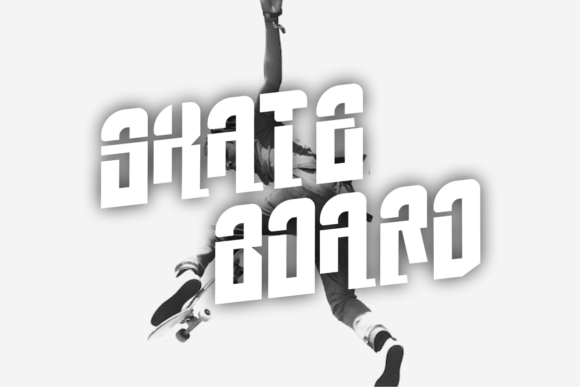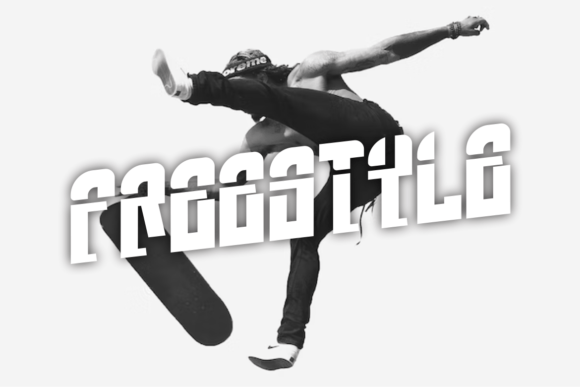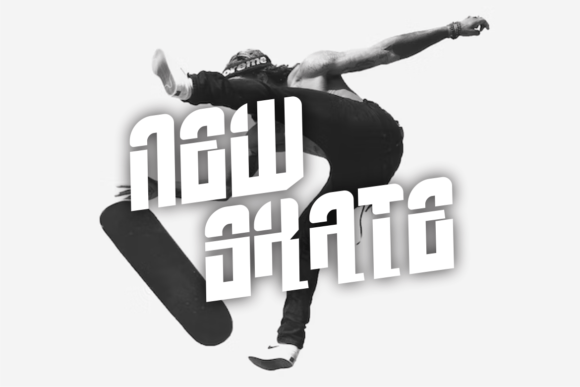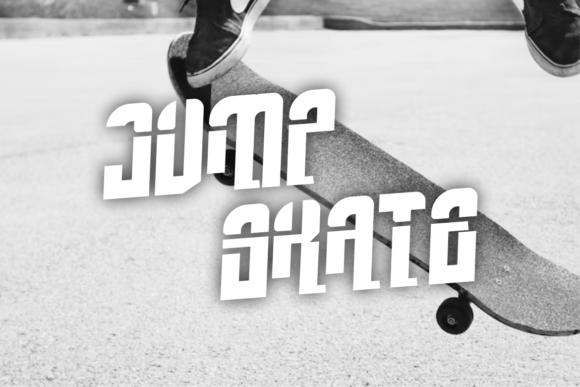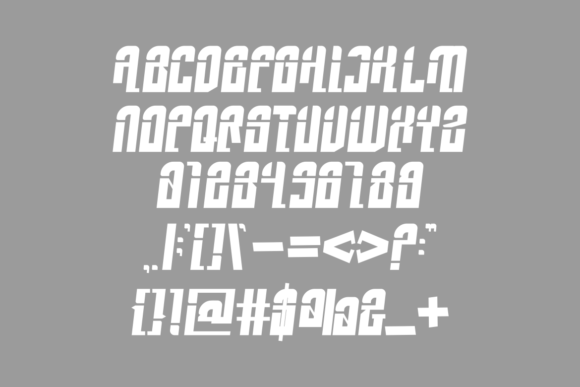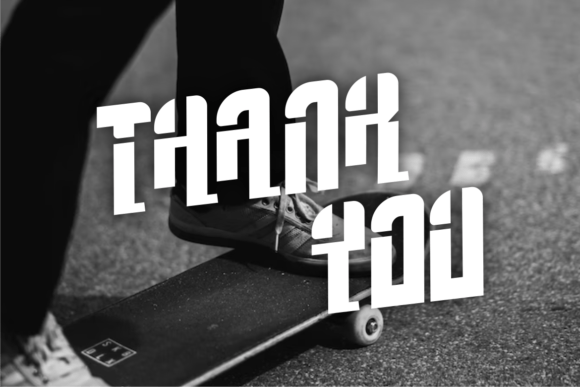
Introducing Arskate Font: The Futuristic Slab Serif for Modern Designs
In the realm of typography, fonts play a pivotal role in conveying the essence and aesthetic of a design. Among the myriad of fonts available, Arskate stands out as a futuristic slab serif font that embodies beauty, futurism, and modernity. This versatile font is perfectly suited for a wide array of projects, ranging from signatures and stationery to logos, wedding designs, typography quotes, magazine or book covers, website headers, clothing, branding, packaging designs, and more.
The Essence of Arskate Font
Arskate is not just a font; it’s an experience. Its slab serif design gives it a robust and dependable feel, while its futuristic undertones add a sleek, modern vibe. This combination makes Arskate a unique addition to any design project, offering both character and versatility. Whether you’re crafting a logo that needs to stand out, designing a wedding invitation that exudes elegance, or creating a website header that captures attention, Arskate provides the perfect blend of style and readability.
Applications of Arskate Font
The adaptability of Arskate font is one of its most compelling features. Here are some of the many ways designers and crafters can utilize Arskate:
- Signature and Stationery: Elevate personal or business correspondence with a touch of modern sophistication.
- Logos: Create memorable and impactful logos that convey innovation and forward-thinking.
- Weddings: Add a contemporary flair to wedding invitations, programs, and decor.
- Typography Quotes: Highlight inspiring quotes with a stylish and modern font.
- Magazine or Book Covers: Stand out on shelves with a cover that combines modernity and readability.
- Website Headers: Capture the essence of your website with headers that are both eye-catching and legible.
- Clothing and Branding: Incorporate Arskate into apparel designs or brand identities for a fresh, modern look.
- Packaging Designs: Make your product packaging not just protective but also a statement piece.
Why Choose Arskate Font?
In a world where design trends are constantly evolving, having a font that can keep pace is invaluable. Arskate offers:
- Uniqueness: Stand out from the crowd with a font that is both modern and distinctive.
- Versatility: Use Arskate across various mediums and projects, from digital to print.
- Legibility: Despite its stylized appearance, Arskate maintains high readability, making it suitable for body text and headlines alike.
- Ease of Use: Arskate is designed to be user-friendly, making it accessible for designers of all skill levels.
Tips for Using Arskate Font Effectively
To maximize the impact of Arskate, consider the following tips:
- Pair with Complementary Fonts: Combine Arskate with simpler fonts for contrast and visual interest.
- Adjust Weight and Size: Experiment with different weights and sizes to add hierarchy and emphasis to your design.
- Consider Color: Choose colors that complement the modern and futuristic feel of Arskate.
Arskate font is more than just a typeface; it’s a design statement. Its futuristic slab serif design offers a fresh alternative to traditional fonts, making it perfect for designers and crafters looking to infuse their projects with a modern edge. With its broad range of applications and user-friendly design, Arskate is poised to become a go-to font for creatives seeking to make a lasting impression.
Whether you’re a seasoned designer or a DIY enthusiast, Arskate invites you to explore new possibilities in typography and design. Embrace the future of font design with Arskate and elevate your projects to new heights of style and sophistication.